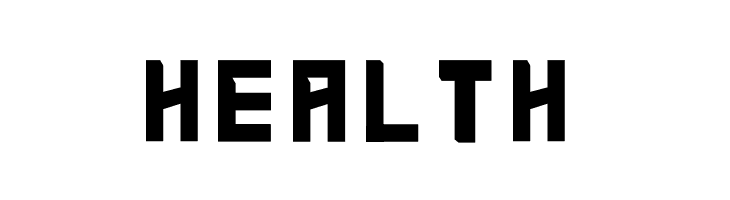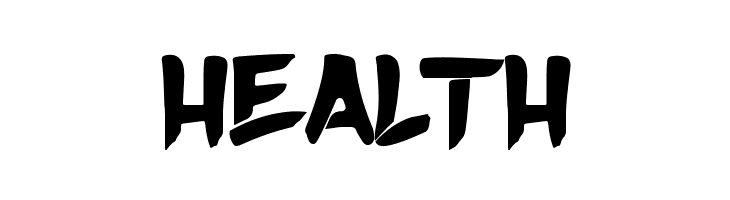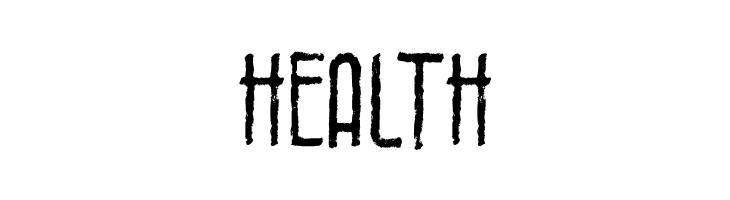
A bold, geometric font with sharp angles and a modern aesthetic.
A modern, light sans-serif font with geometric precision and minimalist style.
A playful, handwritten-style font with smooth, rounded characters.
A bold, brush-style font with dynamic and lively strokes.
A playful, hand-drawn font with decorative uppercase and minimalist lowercase letters.
A cursive, elegant font with flowing strokes and a sophisticated style.
A bold, flowing script font with artistic flair and dynamic curves.
A bold, expressive script font with flowing, cursive letterforms and high contrast.
A rugged, hand-drawn font with a distressed texture and dynamic appearance.